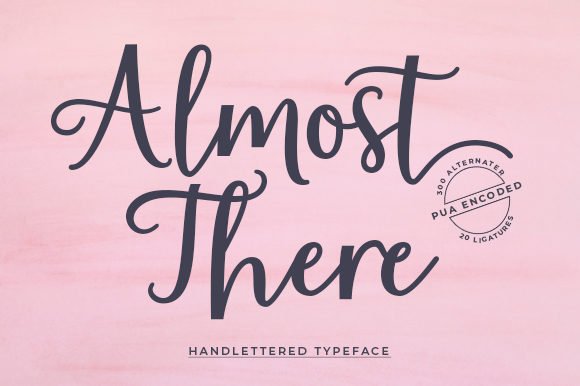
Introduction to Almost There Font
Almost There is a fresh and cute handwritten font.
It is perfect for greeting cards, branding materials, business cards, quotes, posters, and much more This font is PUA encoded which means you can access all of the cute glyphs and swashes with ease.